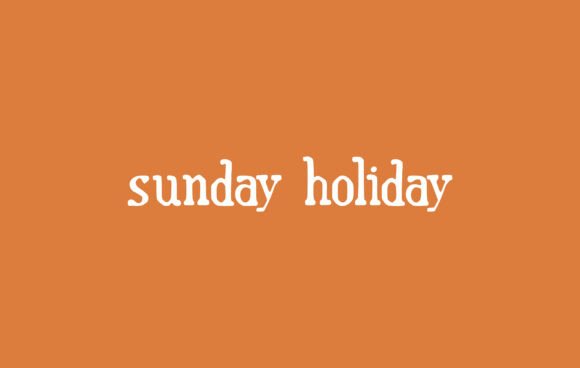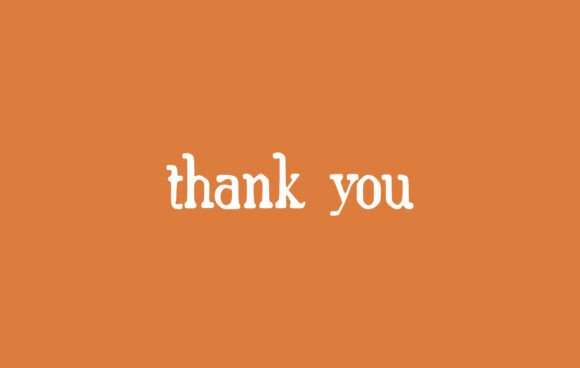
Discover the Charm of Divinitas Font: Elevate Your Designs with a Romantic Touch
In the world of typography, a well-crafted font can make all the difference in bringing your creative vision to life. If you’re a designer, craftsperson, or simply someone who appreciates the art of beautiful writing, you’re in for a treat with Divinitas Font. This authentic handwritten font is imbued with a romantic touch, making it an excellent choice for a wide range of design projects. In this article, we’ll explore the features and benefits of Divinitas Font, and how it can help take your creative ideas to new heights.
The Essence of Divinitas Font
Divinitas Font is an expertly designed typeface that exudes a sense of elegance and sophistication. Its authentic handwritten feel gives it a unique and personal touch, making it perfect for designs that require a more intimate and emotional connection. Whether you’re working on a magazine headline, social media post, branding campaign, wedding invitation, or card, Divinitas Font is sure to make a lasting impression.
Key Features of Divinitas Font
- Legibility: One of the standout features of Divinitas Font is its exceptional legibility. The characters are carefully crafted to ensure that they are easy to read, making it suitable for both title and body text.
- Romantic Touch: The font’s romantic feel is perfect for designs that require a touch of whimsy and charm. It’s ideal for wedding-related designs, Valentine’s Day promotions, and other projects that require a sense of love and connection.
- Versatility: Divinitas Font is incredibly versatile, making it suitable for a wide range of design projects. From magazine headlines and social media posts to branding campaigns and packaging design, this font can adapt to any creative vision.
Use Cases for Divinitas Font
So, what can you create with Divinitas Font? The possibilities are endless! Here are some ideas to get you started:
- Wedding Invitations: Add a touch of romance and elegance to your wedding invitations with Divinitas Font. It’s perfect for creating beautiful, one-of-a-kind invites that will set the tone for your special day.
- Magazine Headlines: Use Divinitas Font to create eye-catching headlines for your magazine or blog. Its romantic feel and exceptional legibility make it perfect for grabbing readers’ attention.
- Social Media Graphics: Elevate your social media presence with stunning graphics created using Divinitas Font. It’s ideal for creating engaging posts, stories, and ads that will resonate with your audience.
- Branding Campaigns: Develop a unique brand identity with Divinitas Font. Its authentic handwritten feel and romantic touch make it perfect for creating a memorable brand image.
- Cards and Stationery: Create beautiful cards, stationery, and gift tags with Divinitas Font. It’s perfect for adding a personal touch to your correspondence and gifts.
Why Choose Divinitas Font?
With so many fonts available, why choose Divinitas Font? Here are just a few reasons why this font stands out:
- Unique and Authentic: Divinitas Font is a one-of-a-kind typeface that will set your designs apart from the rest.
- Highly Legible: The font’s exceptional legibility makes it suitable for both title and body text.
- Romantic and Whimsical: Divinitas Font’s romantic feel adds a touch of whimsy and charm to any design.
- Versatile: This font can be used for a wide range of design projects, from print to digital.
Divinitas Font is a beautiful, authentic handwritten font that is sure to elevate your designs to new heights. Its romantic touch, exceptional legibility, and versatility make it perfect for a wide range of creative projects. Whether you’re a designer, craftsperson, or simply someone who appreciates the art of beautiful writing, Divinitas Font is an excellent choice. So why wait? Discover the charm of Divinitas Font today and bring your creative vision to life!